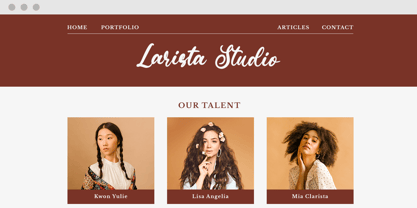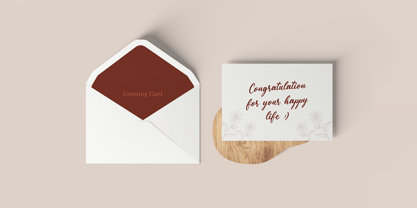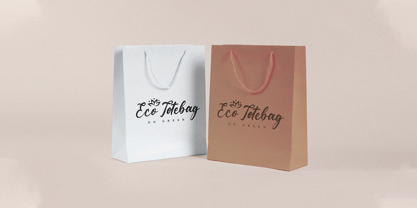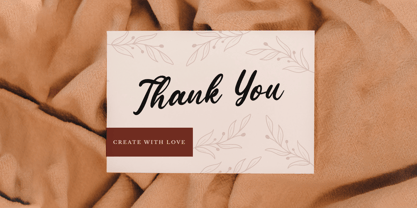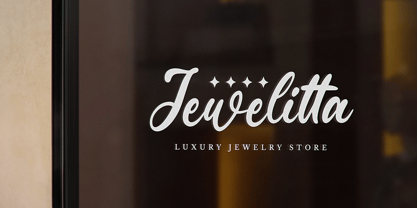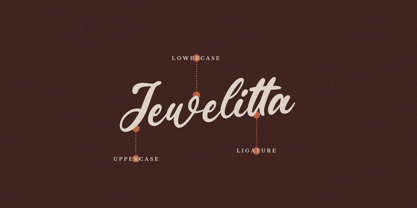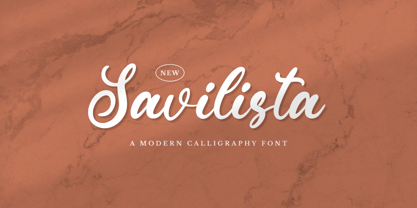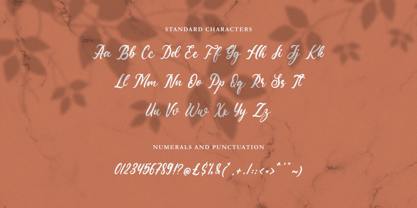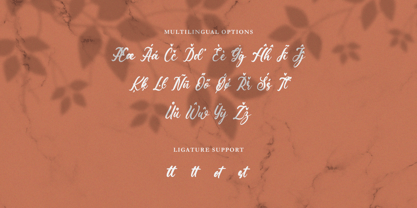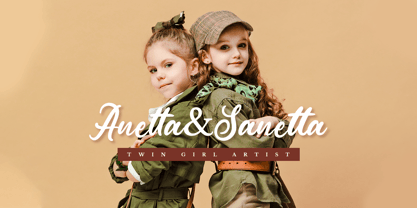
Savilista
by Rockboys Studio
The Savilista Font Family was designed by Hayinah and published by Rockboys Studio. Savilista contains 1 styles. More about this family
Elevate your designs with Savilista, a modern calligraphy font that merges timeless artistry with contemporary flair. Its smooth, flowing lines and delicate curves create a captivating blend of elegance and charm, making it a perfect choice for projects that demand sophistication and a personal touch.
Whether you're designing wedding invitations, logos, social media graphics, or luxury packaging, Savilista adds a graceful and polished aesthetic to every piece.
With Savilista, every word becomes a work of art. Bring your ideas to life with this enchanting and versatile font.
Designers: Hayinah Hayinah
Foundry: Rockboys Studio